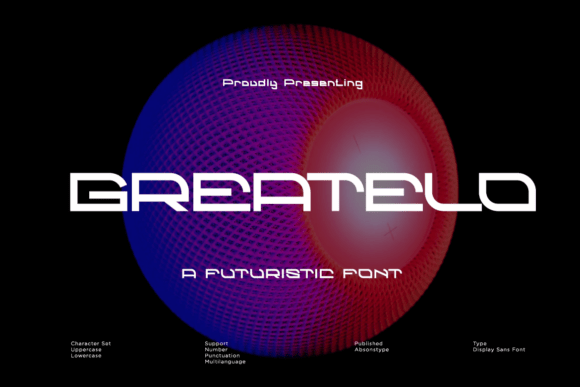
Introducing Greatelo Font: The Modern, Futuristic Typeface for Bold Designs
In the world of typography, fonts play a crucial role in shaping the visual identity of a brand, product, or design project. With the ever-evolving landscape of digital design, the demand for modern, futuristic typefaces has increased significantly. This is where Greatelo Font comes into play, a cutting-edge typeface designed to bring a bold and visionary look to any design project.
What is Greatelo Font?
Greatelo is a modern, futuristic typeface crafted to bring a bold and visionary look to any design project. Its clean lines, geometric shapes, and sharp edges give it a distinctively high-tech aesthetic thatβs ideal for contemporary branding, digital interfaces, product packaging, and creative visual identities.
Key Features of Greatelo Font
Greatelo Font boasts several key features that make it an ideal choice for designers and brands looking for a modern, futuristic typeface. Some of its notable features include:
- Clean Lines: Greatelo Font features clean lines that give it a sleek, sophisticated look.
- Geometric Shapes: The font incorporates geometric shapes, adding a touch of modernity and futurism to its design.
- Sharp Edges: The sharp edges of Greatelo Font give it a distinctively high-tech aesthetic.
- High-Tech Aesthetic: The font’s design elements combine to create a high-tech look that’s perfect for contemporary branding and digital interfaces.
Use Cases for Greatelo Font
Greatelo Font is an incredibly versatile typeface that can be used in a variety of design projects. Some of the most suitable use cases for Greatelo Font include:
- Contemporary Branding: Greatelo Font is ideal for brands looking to create a modern, futuristic visual identity.
- Digital Interfaces: The font’s clean lines and geometric shapes make it perfect for digital interfaces, such as mobile apps, websites, and software.
- Product Packaging: Greatelo Font can add a touch of modernity and sophistication to product packaging, making it stand out on store shelves.
- Creative Visual Identities: The font’s unique design elements make it an excellent choice for creative visual identities, such as logos, icons, and graphics.
Benefits of Using Greatelo Font
Using Greatelo Font in your design projects can bring numerous benefits, including:
- Unique Visual Identity: Greatelo Font can help create a unique visual identity for your brand or design project.
- Modern Aesthetic: The font’s modern, futuristic design elements can give your design project a cutting-edge look.
- Improved Readability: Greatelo Font is designed to be highly legible, making it perfect for digital interfaces and other applications where readability is crucial.
- Versatility: The font’s versatility makes it suitable for a wide range of design projects, from branding and packaging to digital interfaces and creative visual identities.
Tips for Pairing Greatelo Font with Other Fonts
Pairing Greatelo Font with other fonts can create a unique and visually appealing typography scheme. Here are some tips for pairing Greatelo Font with other fonts:
- Contrast with Serif Fonts: Pair Greatelo Font with serif fonts to create a striking contrast between modern, futuristic design and traditional typography.
- Match with Geometric Fonts: Pair Greatelo Font with other geometric fonts to create a cohesive, modern typography scheme.
- Experiment with Script Fonts: Pair Greatelo Font with script fonts to add a touch of elegance and sophistication to your design project.
In conclusion, Greatelo Font is a modern, futuristic typeface that’s perfect for designers and brands looking to create a bold and visionary visual identity. Its clean lines, geometric shapes, and sharp edges give it a distinctively high-tech aesthetic that’s ideal for contemporary branding, digital interfaces, product packaging, and creative visual identities. With its versatility, legibility, and unique design elements, Greatelo Font is an excellent choice for any design project.